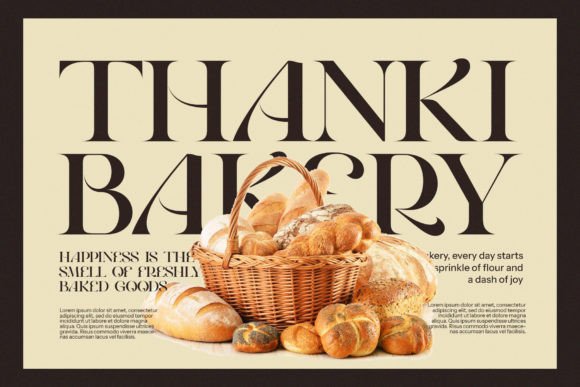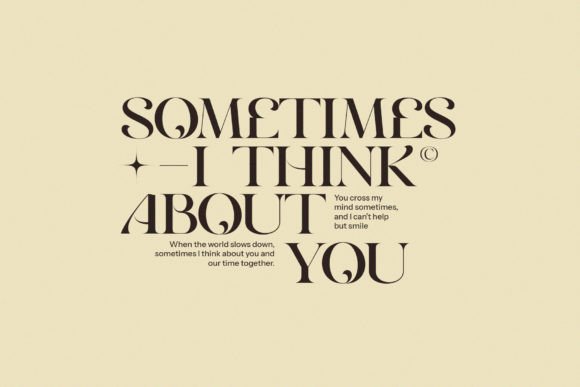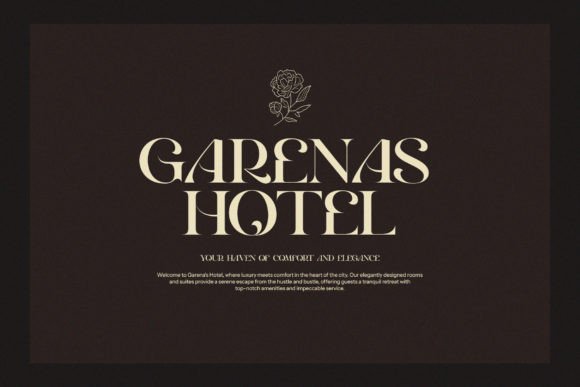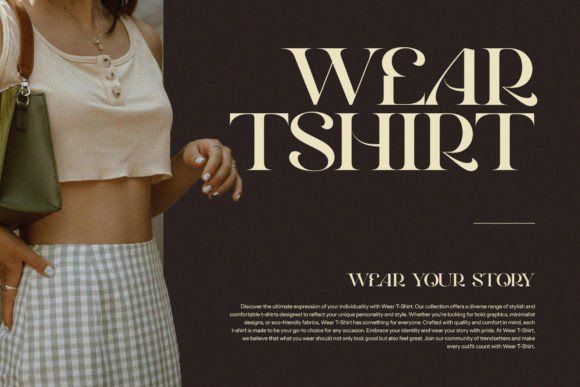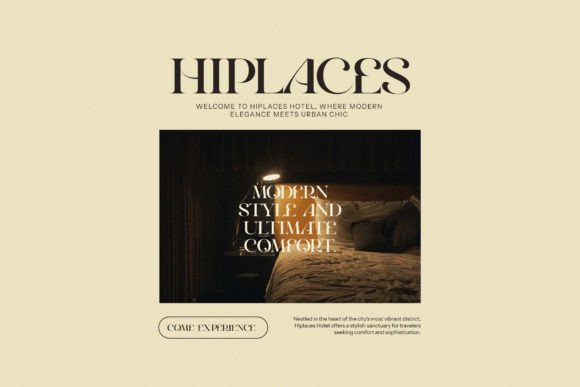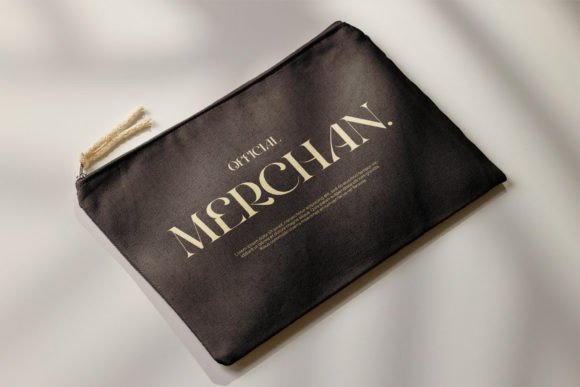
Introducing Agres Font: Elevate Your Designs with Elegance and Luxury
In the world of design, typography plays a crucial role in conveying the tone and personality of a brand. When it comes to creating a lasting impression, the right font can make all the difference. This is where Agres Font comes into play – a sophisticated and classy serif font designed to bring elegance and luxury to your branding and logo designs.
Unparalleled Elegance and Versatility
Agres Font is crafted with precision to offer a unique blend of elegance and luxury, making it an ideal choice for designers and crafters looking to elevate their projects. This type of serif font is made with elegance and luxury in mind, ensuring that it is very suitable for all your design uses. Whether you’re working on branding projects, logos, social media posts, advertisements, labels, product packaging, photography, wedding designs, watermarks, invitation product designs, stationery, or any high-level project, Agres Font is designed to meet your needs with high legibility.
Key Features of Agres Font
- Elegant Serif Design: Agres Font boasts a classic serif design that exudes elegance and sophistication, perfect for brands looking to convey a sense of luxury and refinement.
- High Legibility: With its clear and readable design, Agres Font ensures that your message is communicated effectively, making it suitable for a wide range of applications, from digital media to print.
- Versatility: From branding and logos to social media posts and product packaging, Agres Font’s versatility knows no bounds. It’s designed to adapt seamlessly to various design needs.
- Luxury Appeal: The font’s luxurious feel makes it an excellent choice for high-end brands, wedding designs, and any project that requires a touch of class and sophistication.
Applications of Agres Font
The versatility of Agres Font makes it suitable for a myriad of design applications. Here are some of the key areas where this font truly shines:
- Branding Projects: Establish your brand’s identity with a font that communicates elegance and luxury.
- Logos: Create a lasting impression with a logo that features a sophisticated and classy font.
- Social Media Posts: Elevate your social media presence with visually appealing posts that reflect a high level of elegance.
- Advertisements: Stand out in the crowded digital space with ads that utilize the luxurious appeal of Agres Font.
- Labels and Product Packaging: Add a touch of sophistication to your product packaging and labels, making your products more appealing to potential customers.
- Photography and Wedding Designs: Bring a sense of luxury and elegance to your photography and wedding designs, creating memorable experiences for your clients.
- Watermarks and Invitation Product Designs: Add an elegant touch to your watermarks and invitations, making them more special and personalized.
- Stationery: Elevate your brand’s stationery with a font that exudes professionalism and luxury.
Why Choose Agres Font?
In a market flooded with countless fonts, Agres Font stands out for its unique blend of elegance, luxury, and versatility. Here are a few reasons why designers and crafters should consider Agres Font for their projects:
- Unique Design: Agres Font offers a distinctive design that can set your brand or project apart from the competition.
- Time-Saving: With its high legibility and versatility, Agres Font can save you time in selecting and pairing fonts for different projects.
- Professional Appeal: The font’s luxurious and elegant feel can instantly elevate the professional appeal of your designs.
Agres Font is more than just a typeface – it’s a design statement that can elevate your branding, logos, and various design projects to new heights of elegance and luxury. With its classic serif design, high legibility, and versatile applications, Agres Font is an indispensable tool for designers and crafters looking to make a lasting impression. Whether you’re aiming to create a sophisticated brand identity, design elegant wedding materials, or simply add a touch of luxury to your products, Agres Font is the perfect choice. Embrace the elegance and luxury of Agres Font and transform your designs into timeless pieces of art.